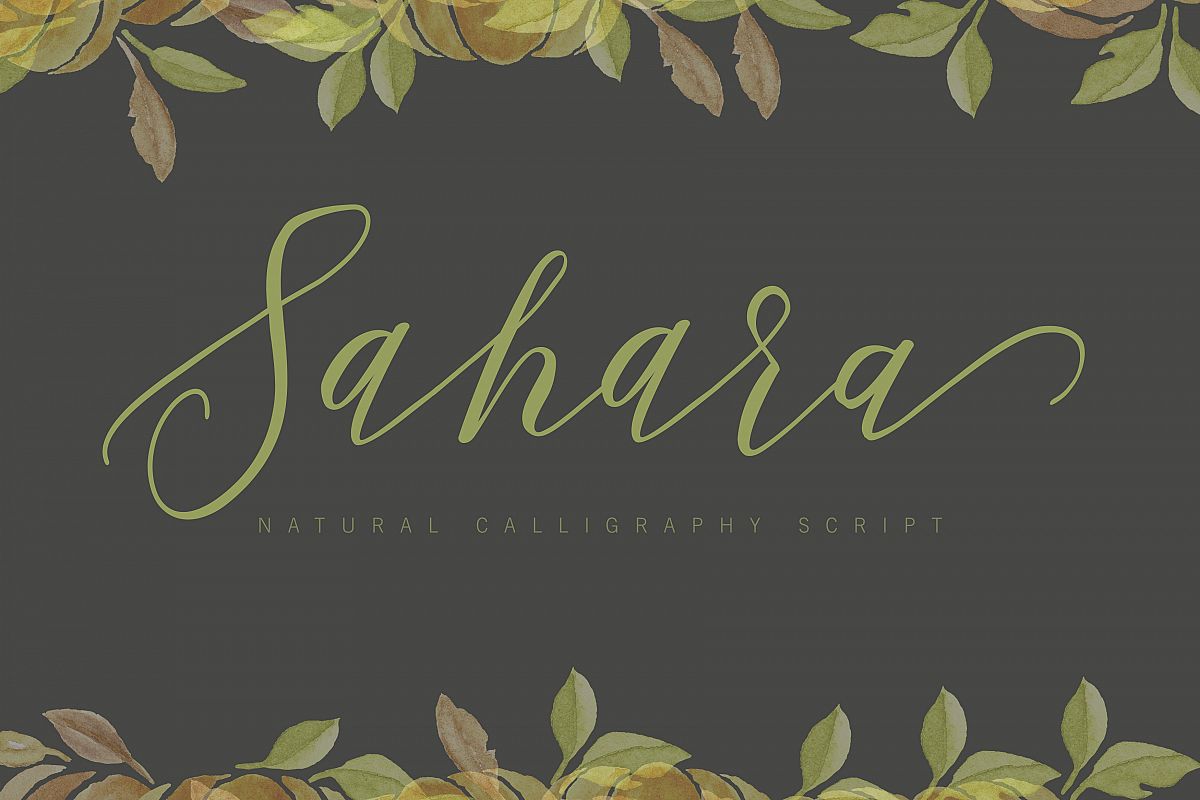
Hi ... Introducing Sahara Script with natural handwriting, hoping to meet the market needs a font that is growing at the present time, if you want to use for your work this font can be used to easily and simply because there are a lot of features in it contains a complete set letter lower and uppercase letters, assorted punctuation, numbers, and multilingual support. font also contains several ligatures and alternative style Stylistic Set those of you who have software that is able to work OpenType (Photoshop / Illustrator / InDesign). Use the format below. . Sahara Script. otf . Sahara Script. ttf Sahara This script can be used to for market design developed at this time, this font has a model Trendy, natural and gentle, with a font, you can take advantage of the opportunity at any time one wonderful way to highlight the celebration of the feast of your best, because this font will be a driving force for purposes such as wedding invitations, party, graduation, birthday, gathering, etc. This font has given PUA Unicode (special code font).